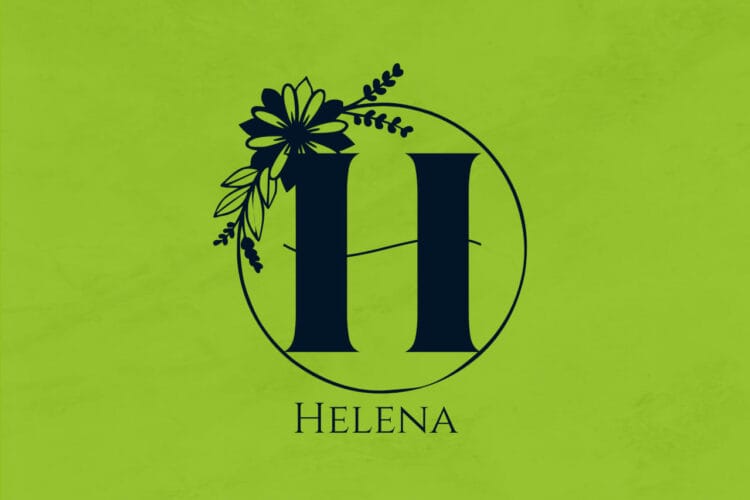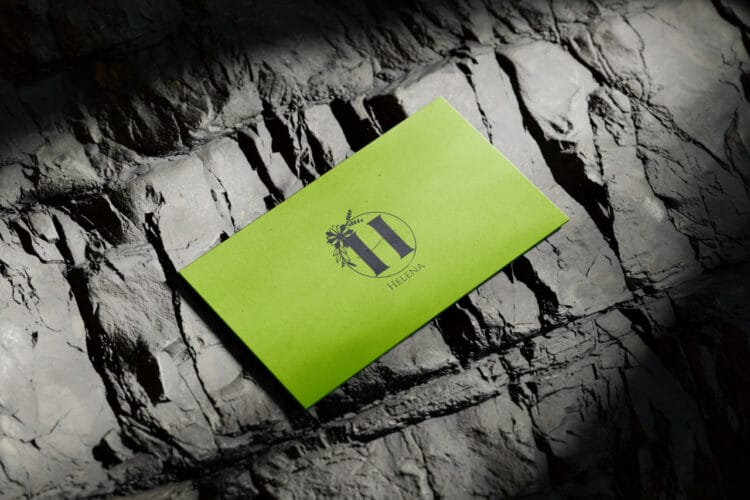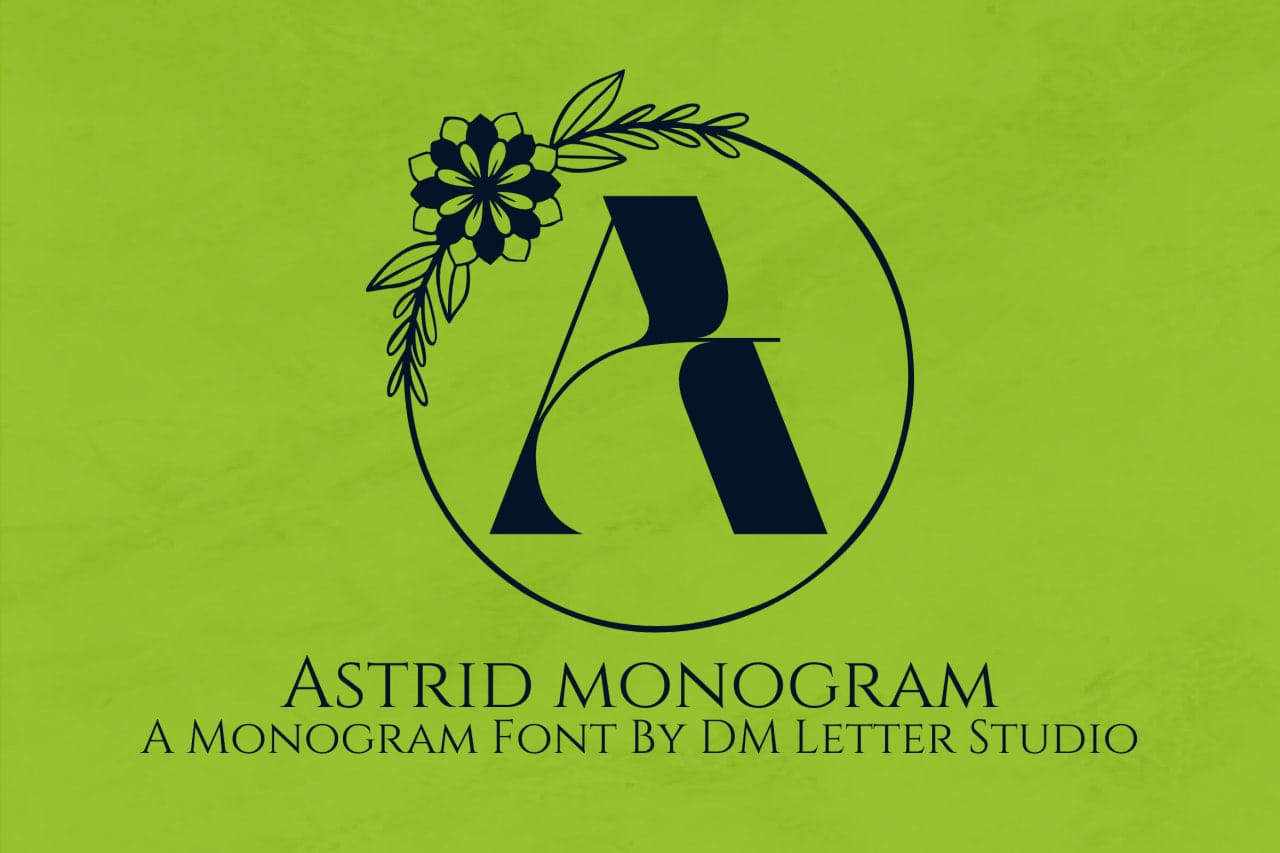
Meet Astrid, the Monogram Font
Astrid Monogram Font turns initials into elegant marks that read fast. The curves feel balanced and clean. The spacing lands just right. Because the counters stay open, tiny tags still look crisp. Use it for weddings, boutique branding, keepsake gifts, and premium packaging. Moreover, Astrid pairs smoothly with soft serifs and modern sans. Therefore, your layouts feel refined without extra work.
Where the Monogram Font shines
Set single, double, or triple initials for logos and seals. Then add thin borders, laurel rings, or geometric frames to echo the forms. Since the proportions favor symmetry, polished compositions come together in minutes. As a result, your thumbnails stand out and your listings look consistent. Also, Astrid scales from jewelry cards to venue signage with ease.
Fast setup, polished results
Design tips for Astrid Monogram Font
Keep initials large and let negative space breathe. Pair headline monograms with a quiet serif or a humanist sans for body copy. Meanwhile, add micro shadows, fine-line frames, or a thin inner stroke. Because the structure is airy, metallic accents raise perceived value. Try textured papers and soft lighting in your previews for a luxe feel.
Select stylistic alternates for key letters
Curves tuned for foil, letterpress, engraving, and clean vinyl cutting
Why creators choose this monogram font
You want elegance that reads at a glance and sells quickly. Astrid delivers. It captures attention in thumbnails and saves production time. Also, it keeps your brand voice cohesive from invites to signage. However, keep copy brief and let the monogram lead. Consequently, every piece feels intentional, premium, and memorable.
Creative ideas with Astrid
Press wax seals for invitations. Then engrave luggage tags and compact mirrors. Also, design submarks, ribbon tags, and pattern tiles for full brand kits. Finally, schedule a coordinated drop before peak events to lift conversion and repeat sales.